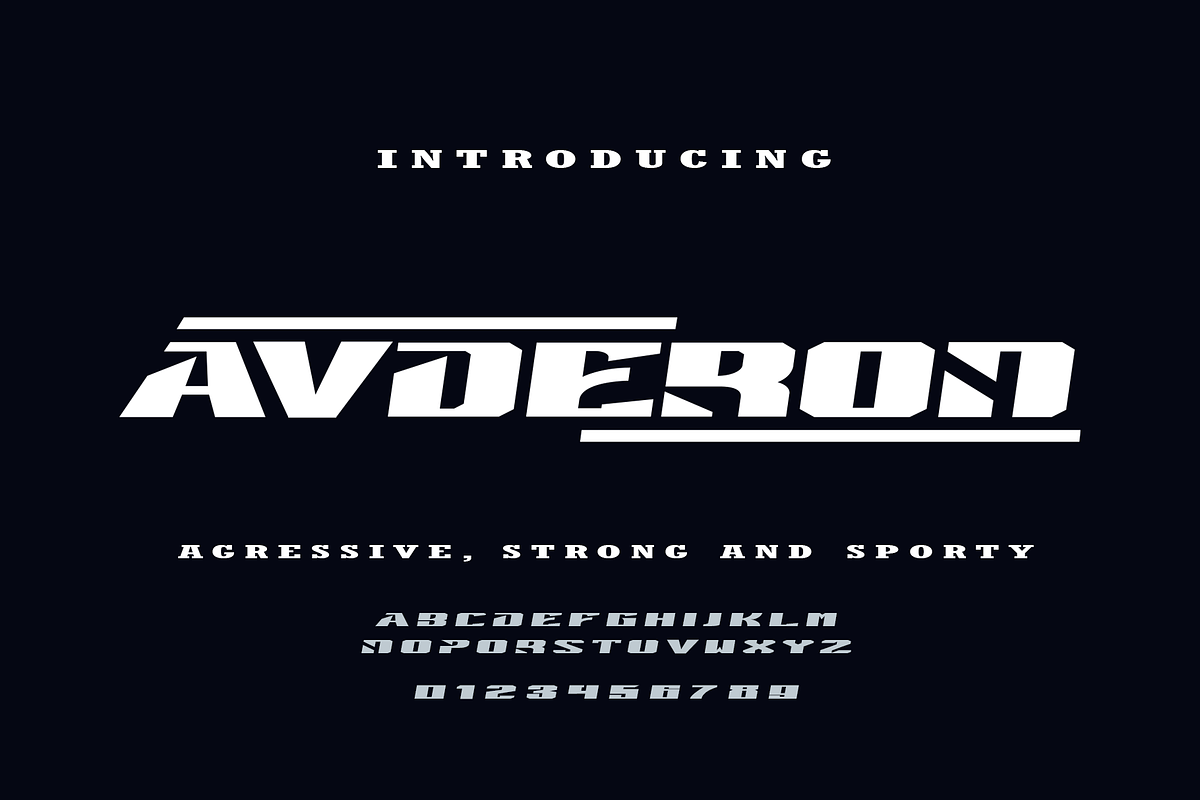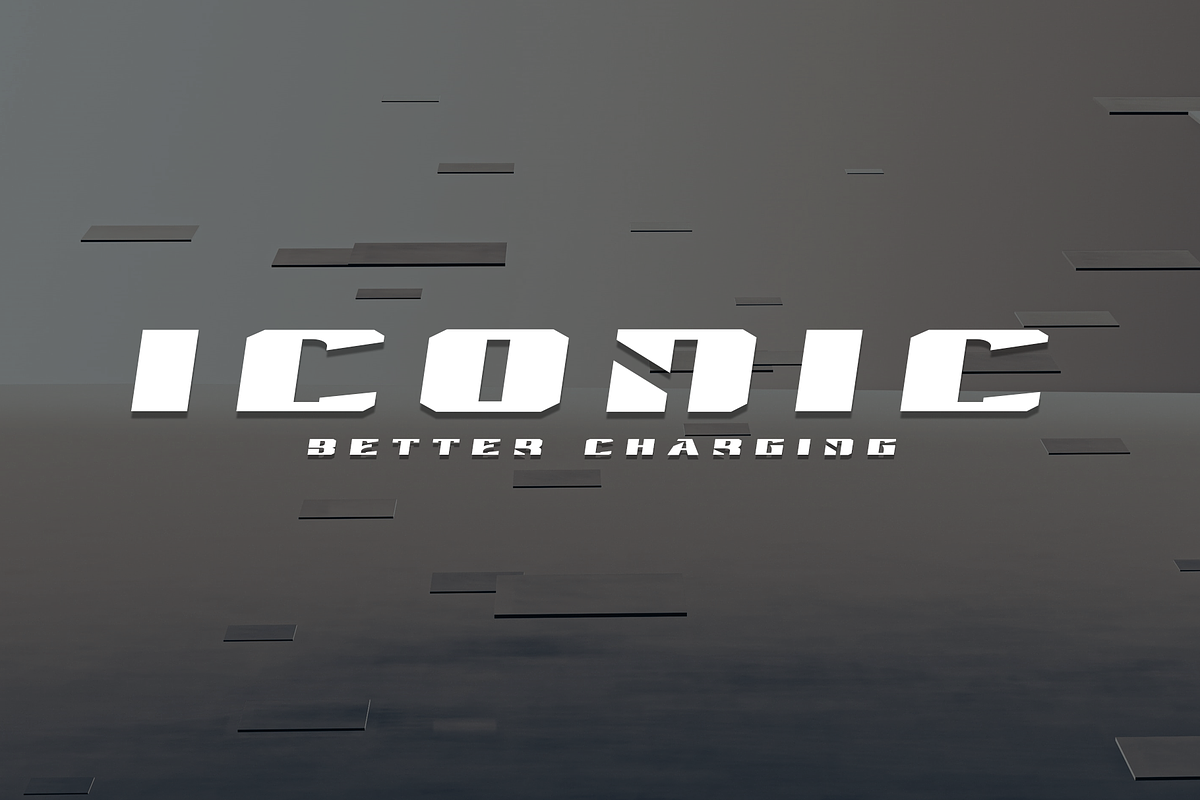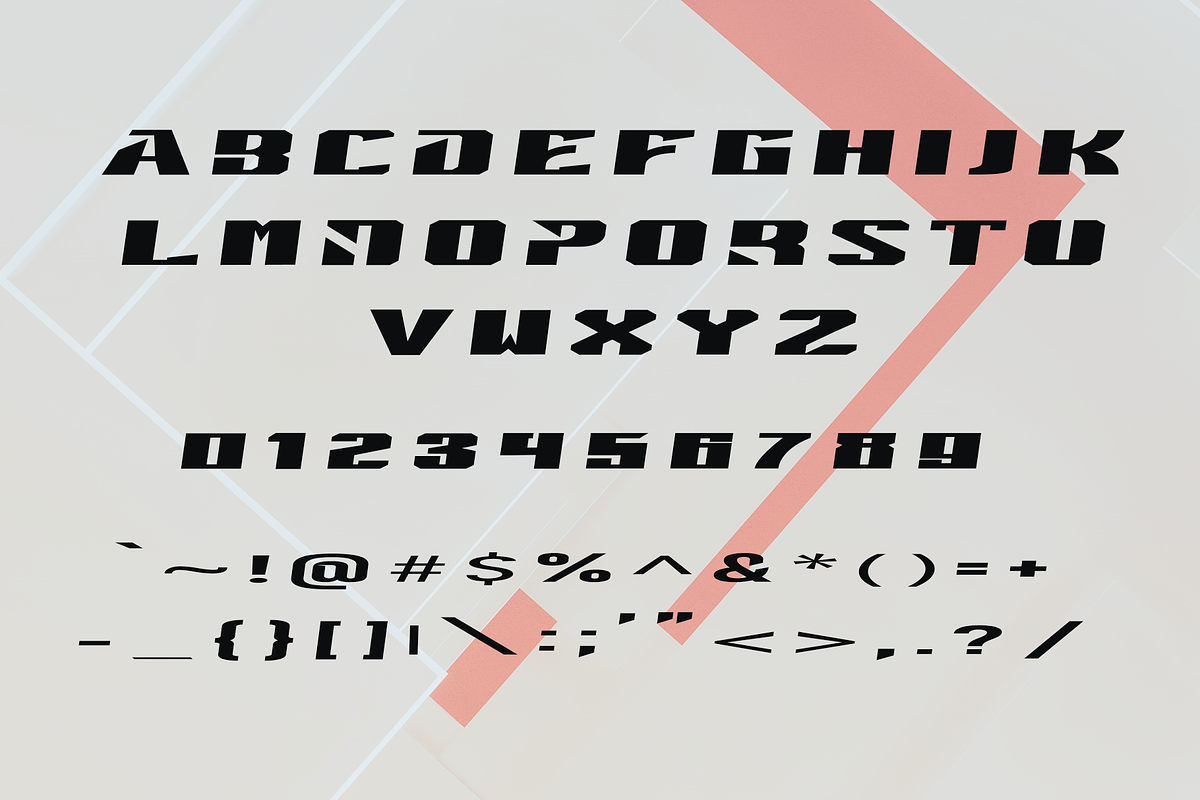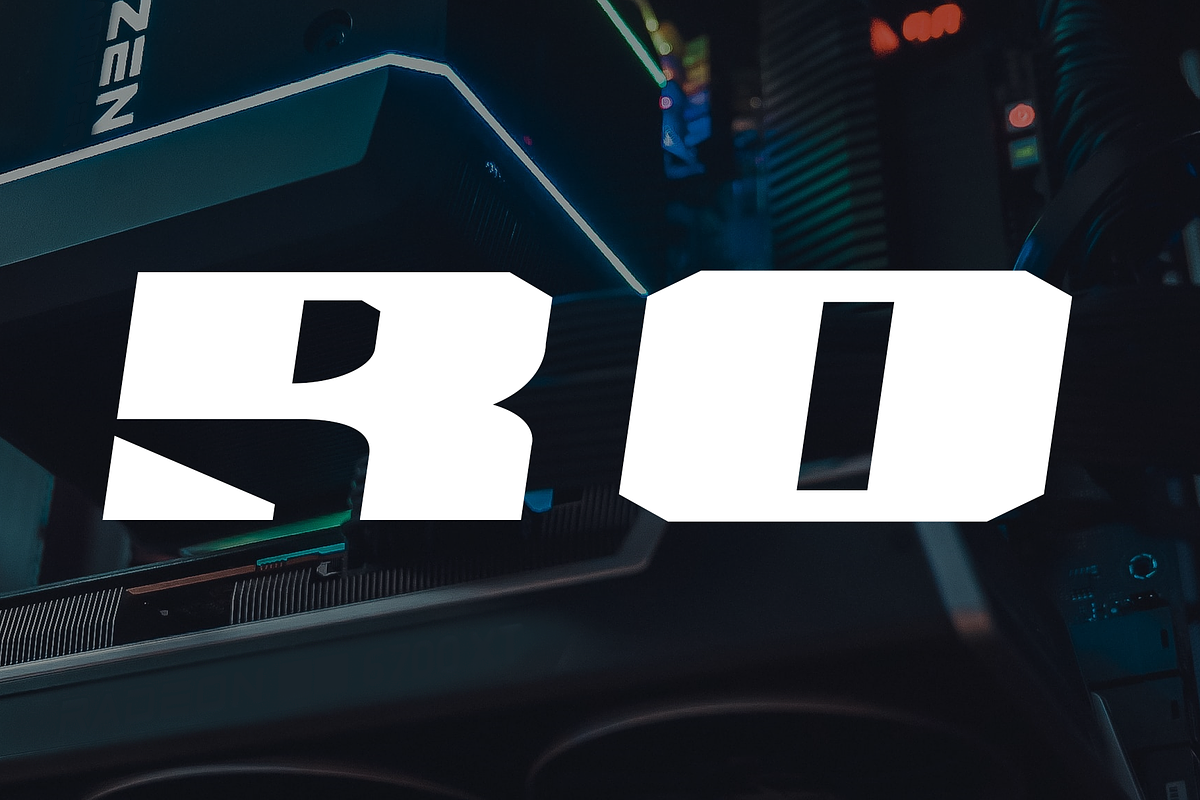
Avderon - Aggressive Font
Introducing Avderon , a aggressive, strong, and sporty font. So perfect for you who needs a typeface for logo designs, magazine, social media, brochure, and many more.